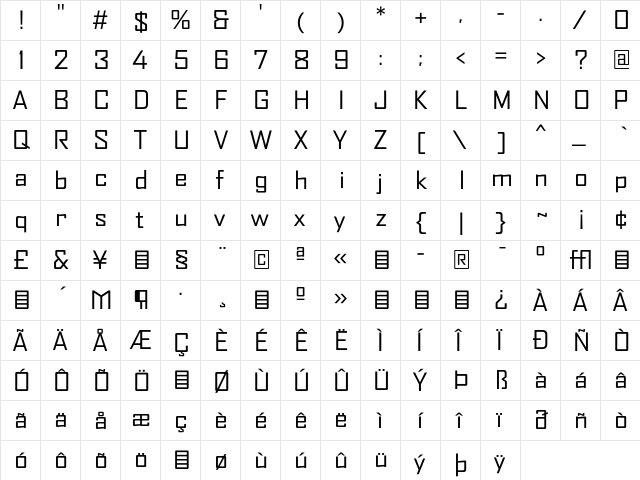
AgencyFBWide Regular
Design Context for AgencyFBWide Typeface
AgencyFBWide takes a measured approach to typography — its balanced proportions and neutral character make it a reliable workhorse for both digital and print work.
Pro Tip: Use AgencyFBWide in both headline and body roles to test its range before committing to a single application.